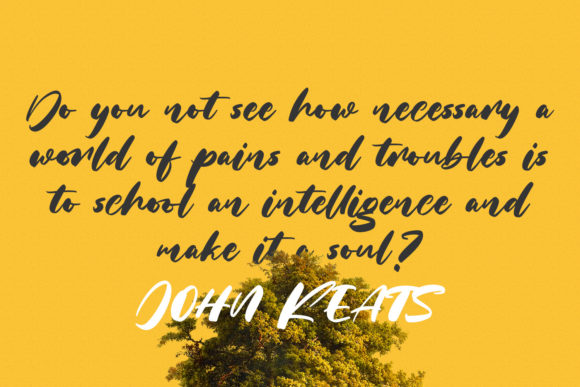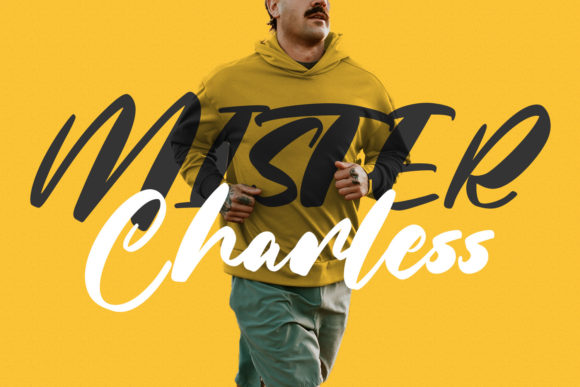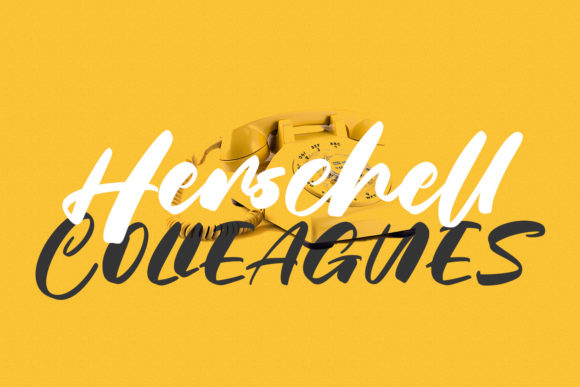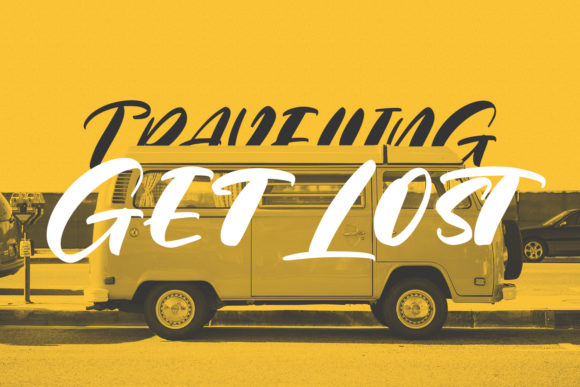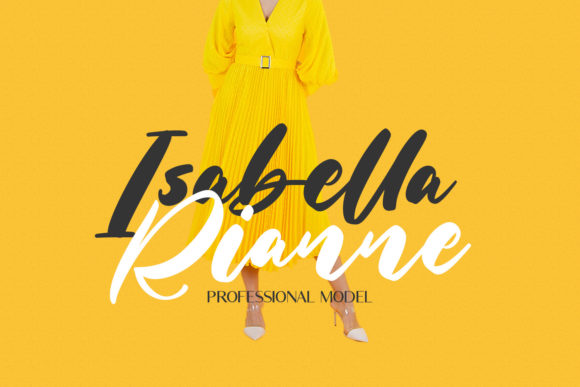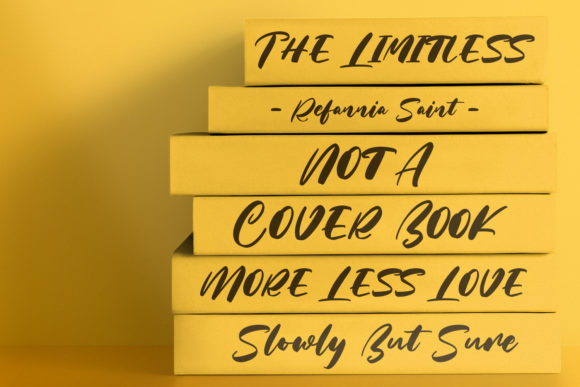
Introduction to Halley Parades Font
Have you ever been stuck on a creative project, searching for the perfect font to bring your vision to life? You know, that moment when everything feels just right, except for the font – it’s like the missing piece of a puzzle. That’s where the Halley Parades Font comes in, a hidden gem in the world of design resources.
This cool, relaxed, and casual handwritten font is a game-changer for designers. With its high-quality design, it’s the perfect addition to any creative project, from a simple social media post to a complex brochure. And the best part? It’s available for free download, making it an accessible design resource for everyone.
Key Features of Halley Parades Font
- High-quality design resource perfect for creative projects requiring a unique touch.
- Halley Parades Font comes in a single font size, but its scalable design ensures crisp readability at various resolutions.
- Designed to work well at high resolutions (up to 300 DPI), making it suitable for print and digital applications.
- A free, high-quality design resource ideal for creative projects, including logos, branding, and advertising materials.
Honest Review: Halley Parades Font
I recently stumbled upon the Halley Parades Font while searching for a unique design resource to spice up a creative project. Initially, I was drawn to its elegant and playful vibe, perfect for anything from wedding invitations to children’s book illustrations.
Here’s what I love about this font: ✨ It’s a high-quality, free download, which makes it an excellent choice for designers working on a budget. The font is well-designed and has a transparent background, allowing for seamless integration with any design.
Here are some specific features I appreciate:
- Extensive character set, including a wide range of symbols and special characters
- High-resolution fonts, suitable for print and digital applications
However, there are some limitations to consider: ⚠️ The font might not be suitable for use in extreme close-up or high-contrast applications, as the fine details can get lost. Additionally, the font’s style might not appeal to all designers or audiences.
Overall, I’m impressed with the Halley Parades Font and would definitely recommend it to designers looking for a versatile and high-quality design resource.
The Halley Parades Font is a versatile design resource that can be used in a variety of creative projects, such as:
- Social media graphics and advertisements
- Use it with a transparent background to create a modern and sleek look.
The Halley Parades Font is a high-quality design resource that can be downloaded for free. With its unique and elegant design, it’s perfect for any creative project that requires a touch of sophistication and style.